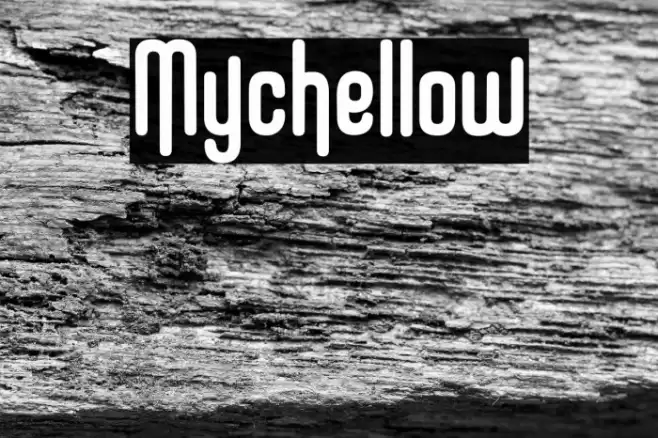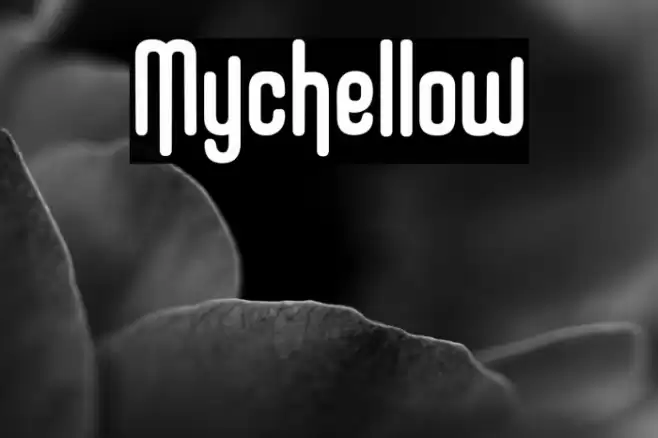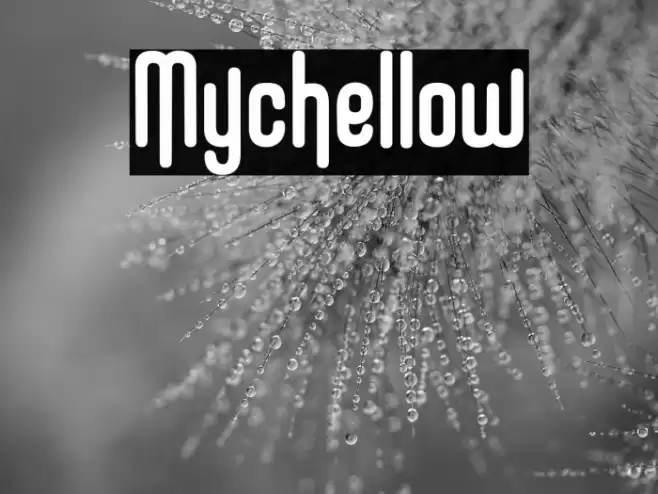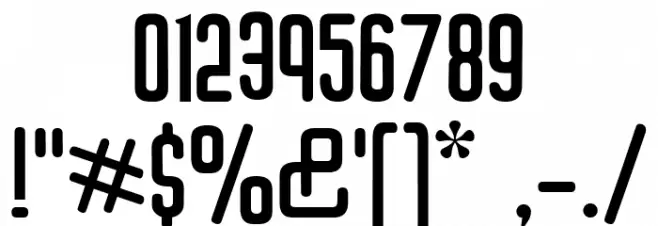
Mychellow Font
Mychellow Description
This font features a modern and playful design with rounded edges and a consistent stroke width. The characters are tall and slightly condensed, giving it a unique and approachable appearance. The uppercase and lowercase letters maintain a uniform style, with the lowercase letters being slightly shorter and more compact. The numerals are clear and easy to read, matching the overall style of the alphabet. Special characters are included, maintaining the same rounded and friendly aesthetic. This font is versatile and can be used in various design projects that require a contemporary and inviting look.
A modern, rounded font with a playful and approachable design from Regular fonts.
- Proposed Projects: Ideal for branding, packaging, children's books, and digital media projects.
- Use Case: Headlines, Logos, Digital Media